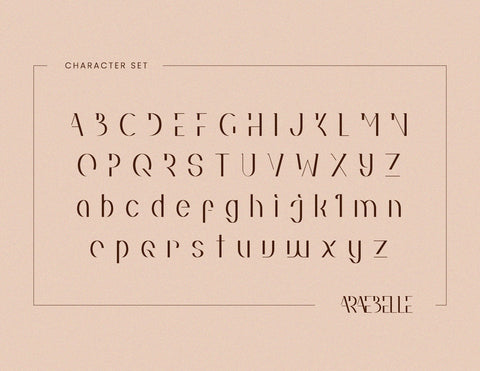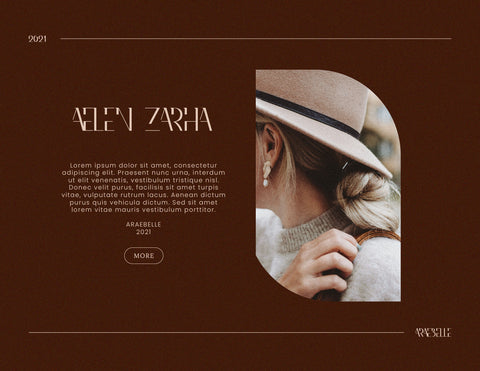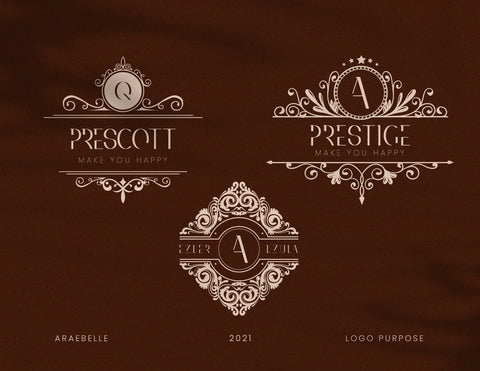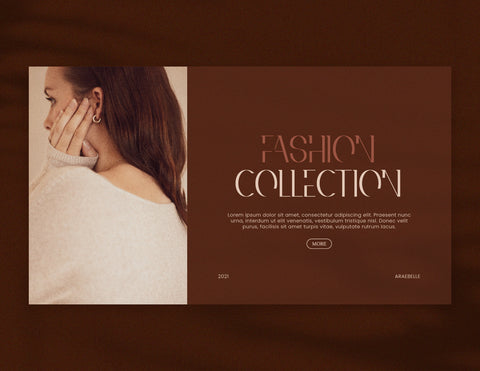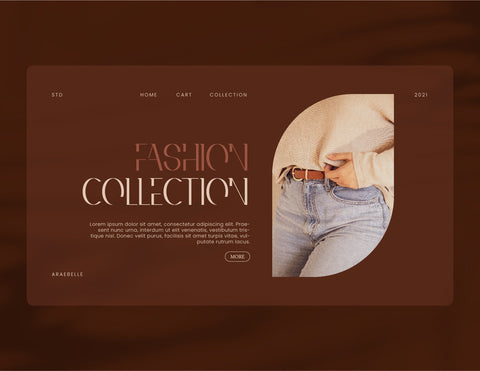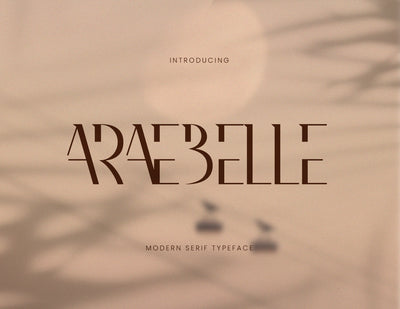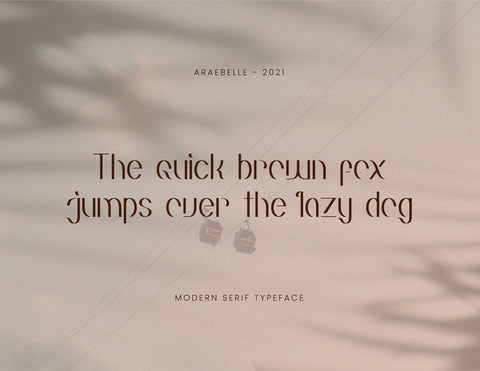
Araebelle Modern Serif Typeface
Araebelle is the one of Serif Modern Display Font. It inspired by some Serif Modern and Display Font which usually use for brand name. "Araebelle" modified them all and make the new creature with prettier and neat shape. "Araebelle" just has the uppercase or capital alphabets only as the commonly Display Font. Because of the creatures and the type, "Araebelle" is appropriate use for brand name, fashion, magazine, title, poster, pamphlet, etc. It will make your design look more elegance, classy, neat, and artistic.